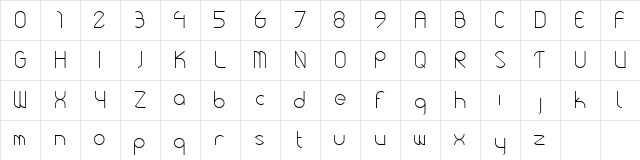
Complete Roundy Regular glyph index. Displaying only characters natively supported by Roundy Regular font.
Roundy softens its letterforms with rounded terminals, giving it an approachable, friendly quality that works well in consumer-facing and digital contexts.
Font Pairing: Pairs well with a rounded or humanist sans for body copy, maintaining the friendly tone without relying on Roundy to carry extended reading.
Pro Tip: Use Roundy for UI elements, app interfaces, and anywhere a friendly, approachable tone needs to be maintained without sacrificing clarity.